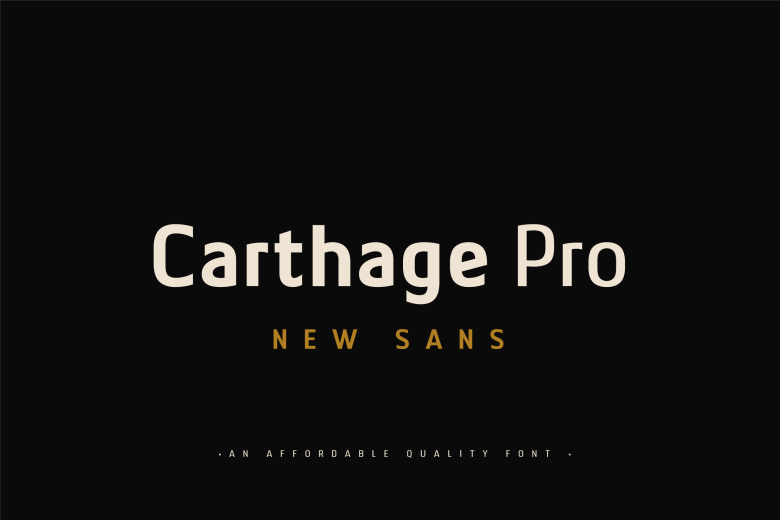
Carthage Pro Font
Carthage Pro is a versatile, modern sans-serif font designed to make a strong impression across various design applications. Whether you’re working on banners, logos, labels, websites, or advertising materials, Carthage Pro adds distinction and flair, ensuring your project stands out with sophistication.